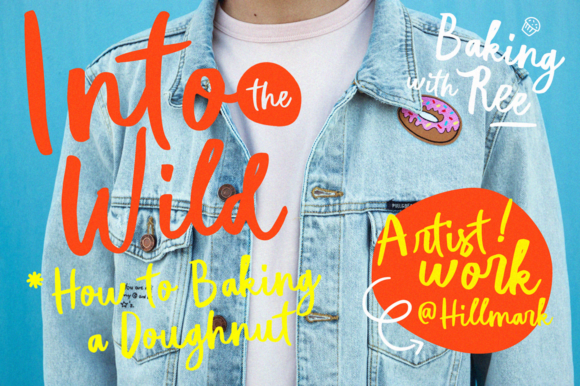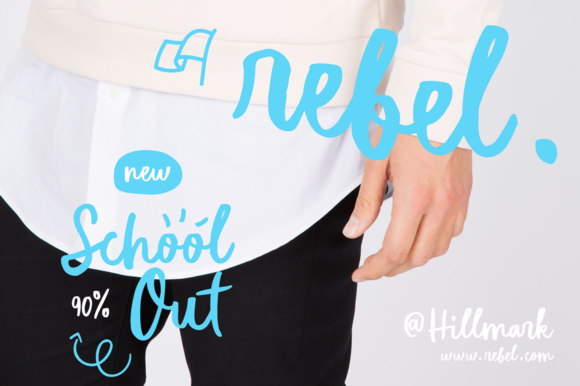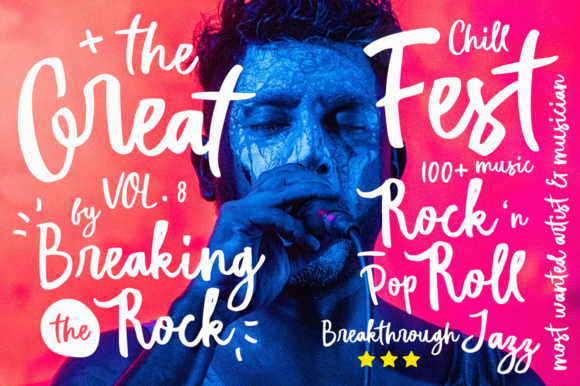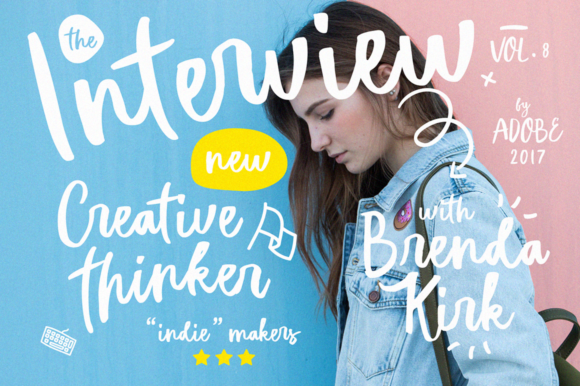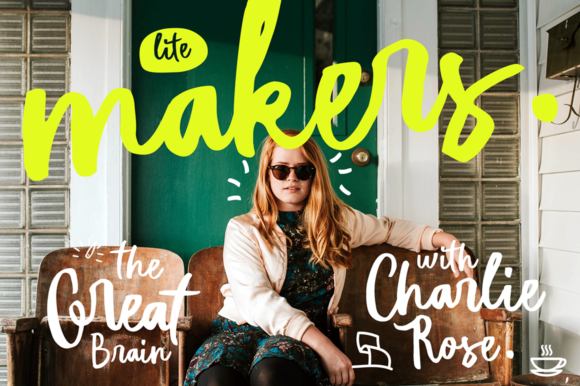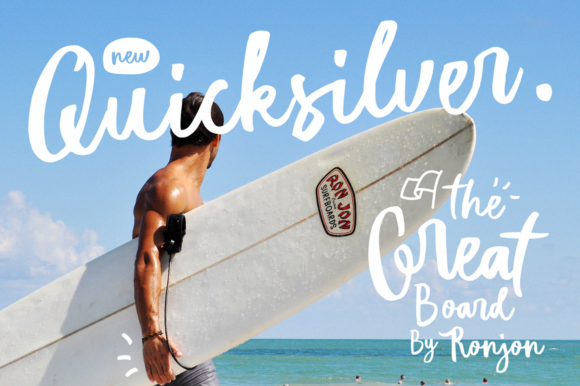
Introduction to Hillmark Font
Hillmark, a brand new typeface script font.
Quirky and stylish, just right for your new designs Perfectly fit for your fashion branding, magazines, handwriting logos, inspirational quote posters, oh well you name it.
Key Features of Hillmark Font